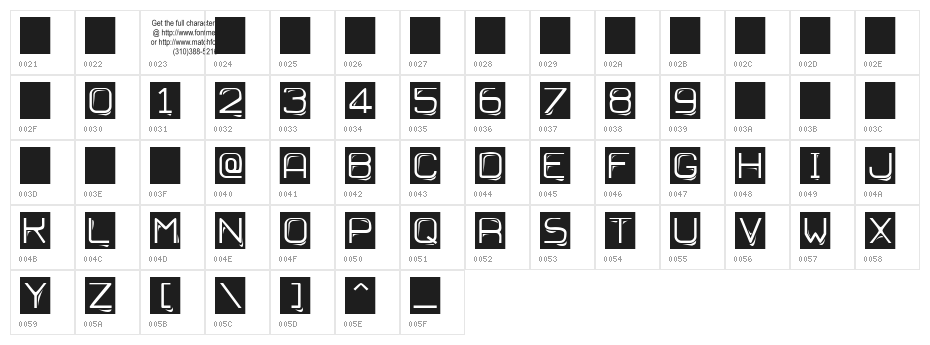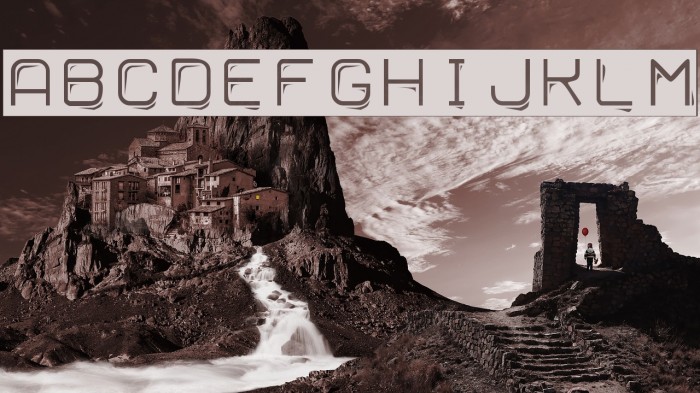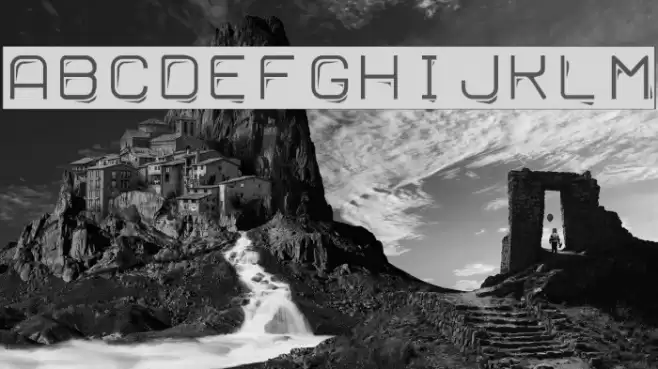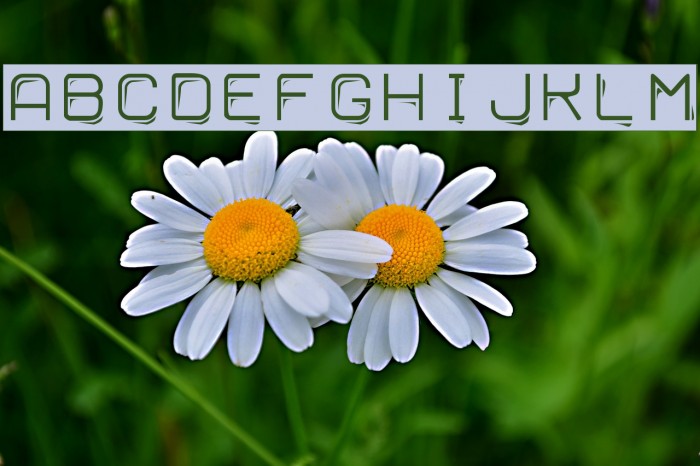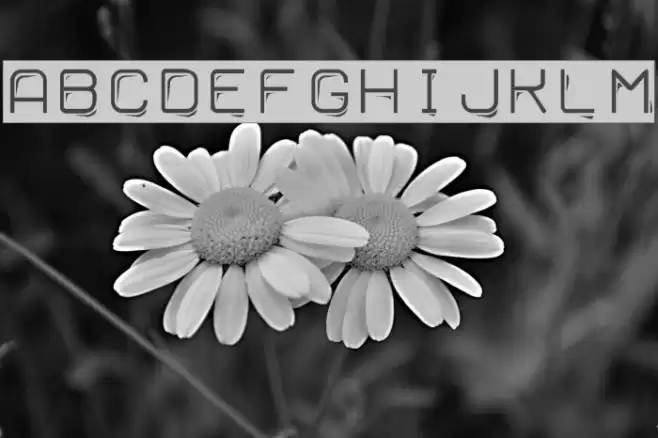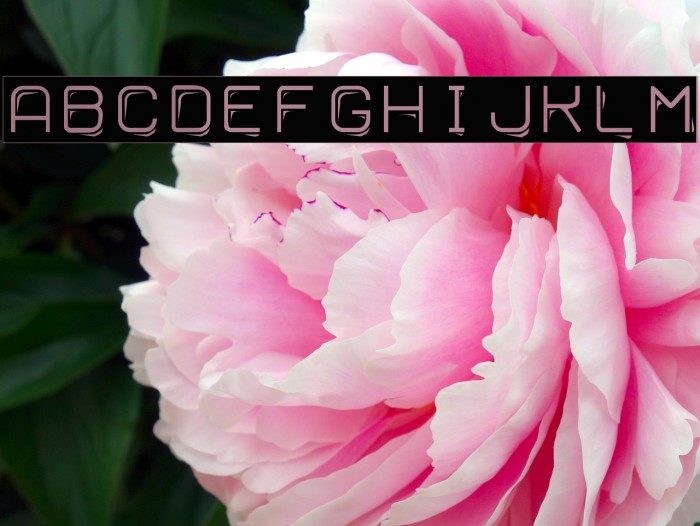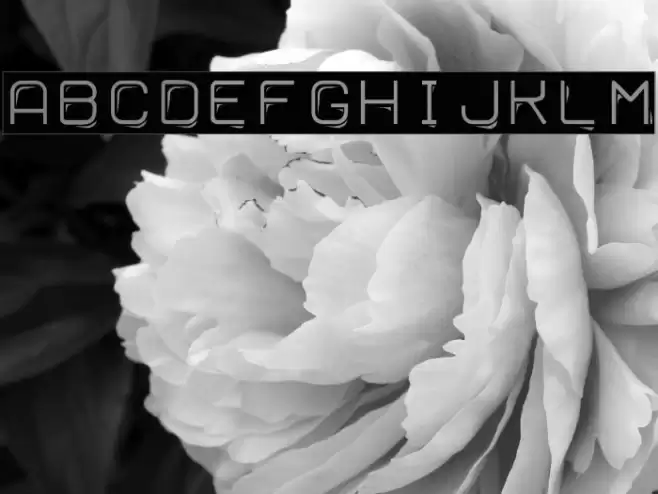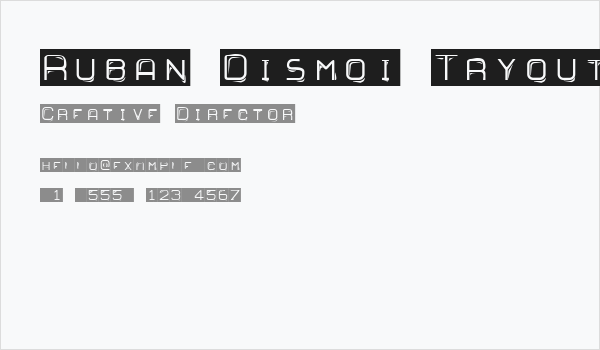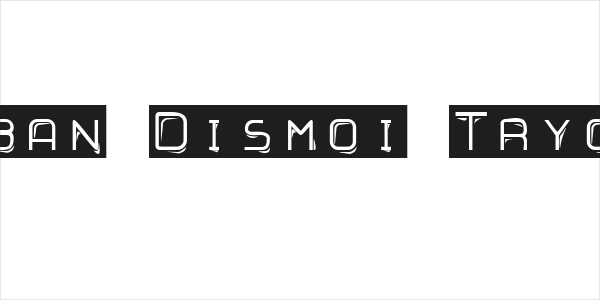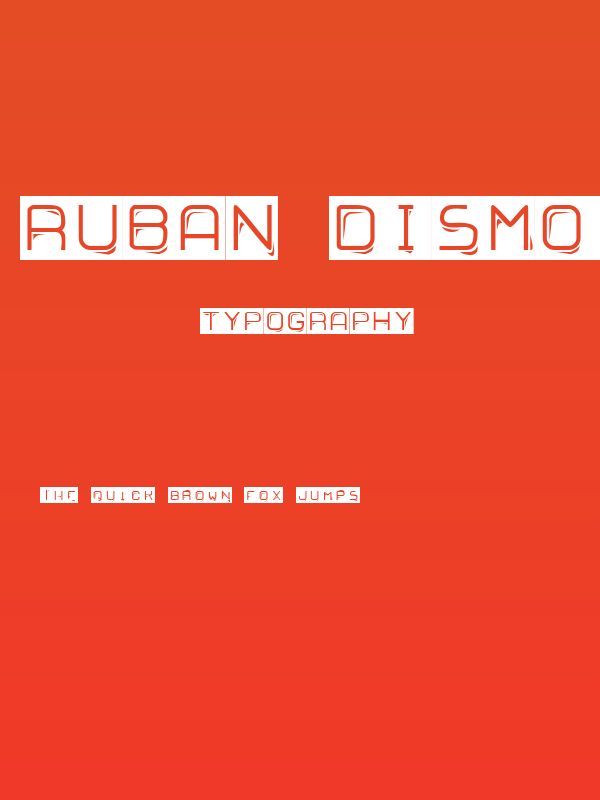
Ruban Dismoi Tryout Font
Ruban Dismoi Tryout Description
This font features a unique and modern design with a geometric and angular style. Each character is crafted with a distinct ribbon-like effect, giving it a dynamic and flowing appearance. The uppercase and lowercase letters maintain a consistent design, with sharp edges and a futuristic aesthetic. The numbers follow the same style, ensuring uniformity across the font set. This font is ideal for projects that require a bold and eye-catching typeface, making it suitable for headlines, posters, and branding materials.
| Proposed Projects | Ideal for use in branding, posters, headlines, and any project requiring a bold, modern typeface. |